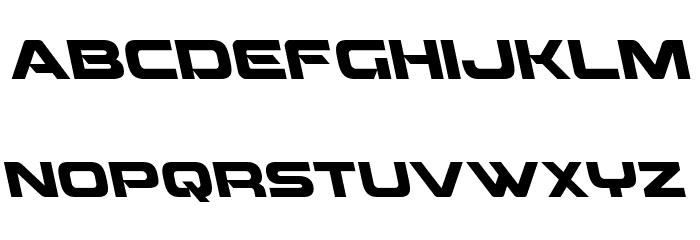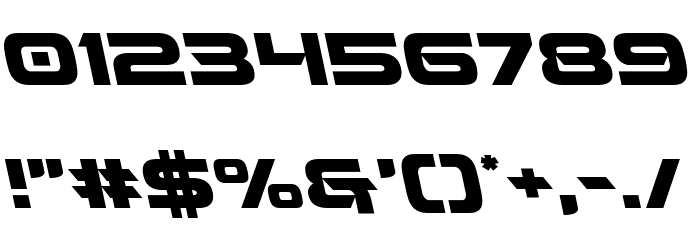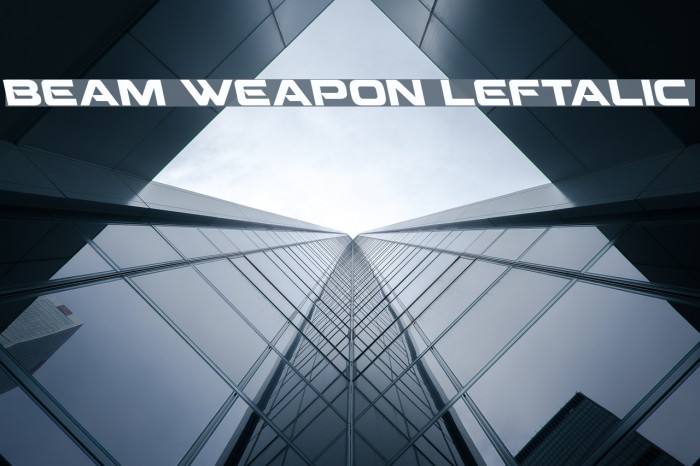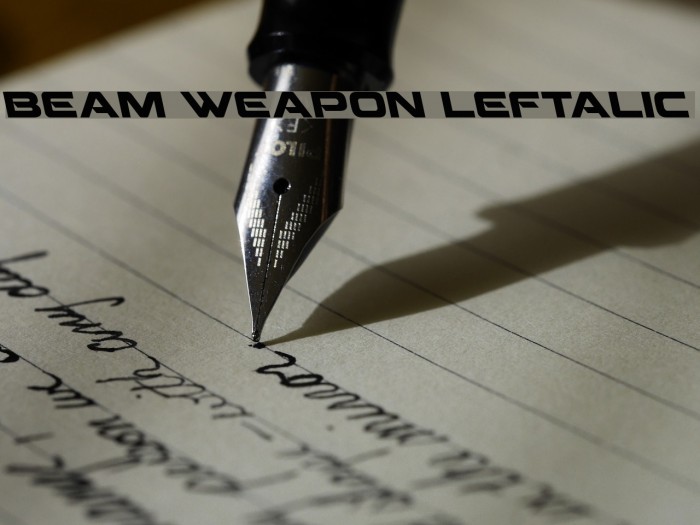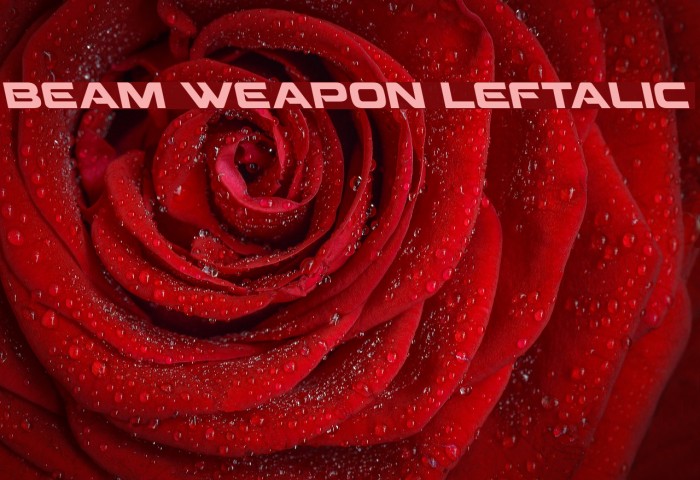
Beam Weapon Leftalic Font
This font features a futuristic and dynamic design with sharp angles and a bold presence. The characters are slightly slanted, giving a sense of motion and energy. The uppercase letters are distinct with geometric cuts, while the lowercase maintains a consistent style. Numbers and special characters follow the same angular theme, making the font suitable for modern and tech-oriented projects. The overall appearance is sleek and powerful, ideal for capturing attention.
A futuristic, angular font with a bold and dynamic style.
- Proposed Projects: Ideal for sci-fi movie posters, video game titles, tech branding, and futuristic event flyers.